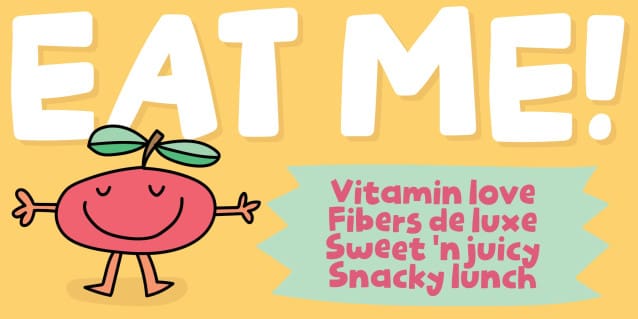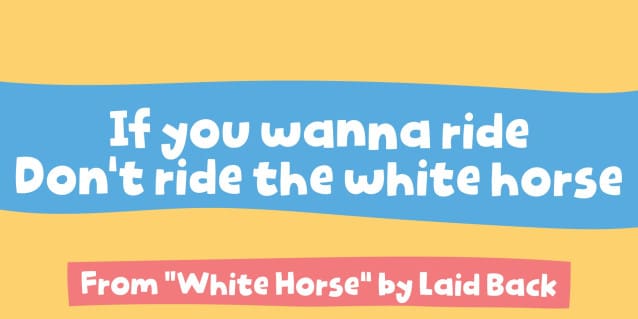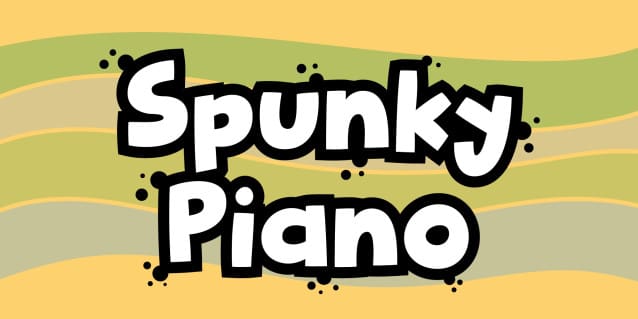
Spunky Piano Font
Spunky Piano, originally hand drawn, as I digitally cleaned up each letter – creating a strong and expressive comic font – yet still bold, playful and easy to read!
With its dynamic curves and energetic shapes, Spunky Piano is perfect for things like children’s posters, stickers, comics, speed balloons and a variety of products (usually for children, but anything that needs a fresh and casual look!)